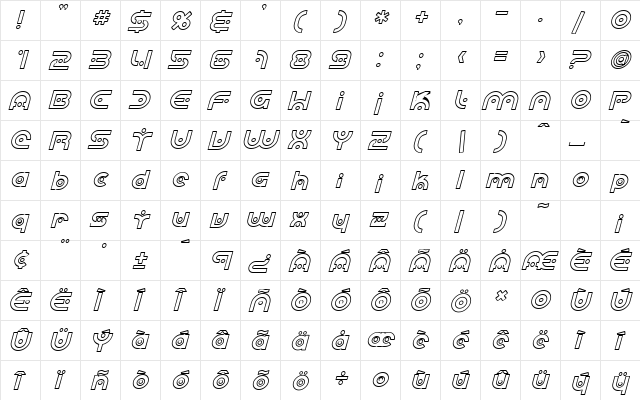
SF Planetary Orbiter Outline Italic
Design Context for SF Planetary Orbiter Outline Typeface
SF Planetary Orbiter Outline is built around its visual character rather than neutral utility — its distinctive forms are designed to make an impression at display sizes. Its italic angle brings a sense of urgency and motion to the letterforms.
Font Pairing: Pair with a clean neutral sans-serif for body copy to let SF Planetary Orbiter Outline's character lead without overwhelming the composition.
Pro Tip: Treat SF Planetary Orbiter Outline as the centrepiece of your typographic hierarchy. One strong heading set in a decorative face can carry an entire layout.